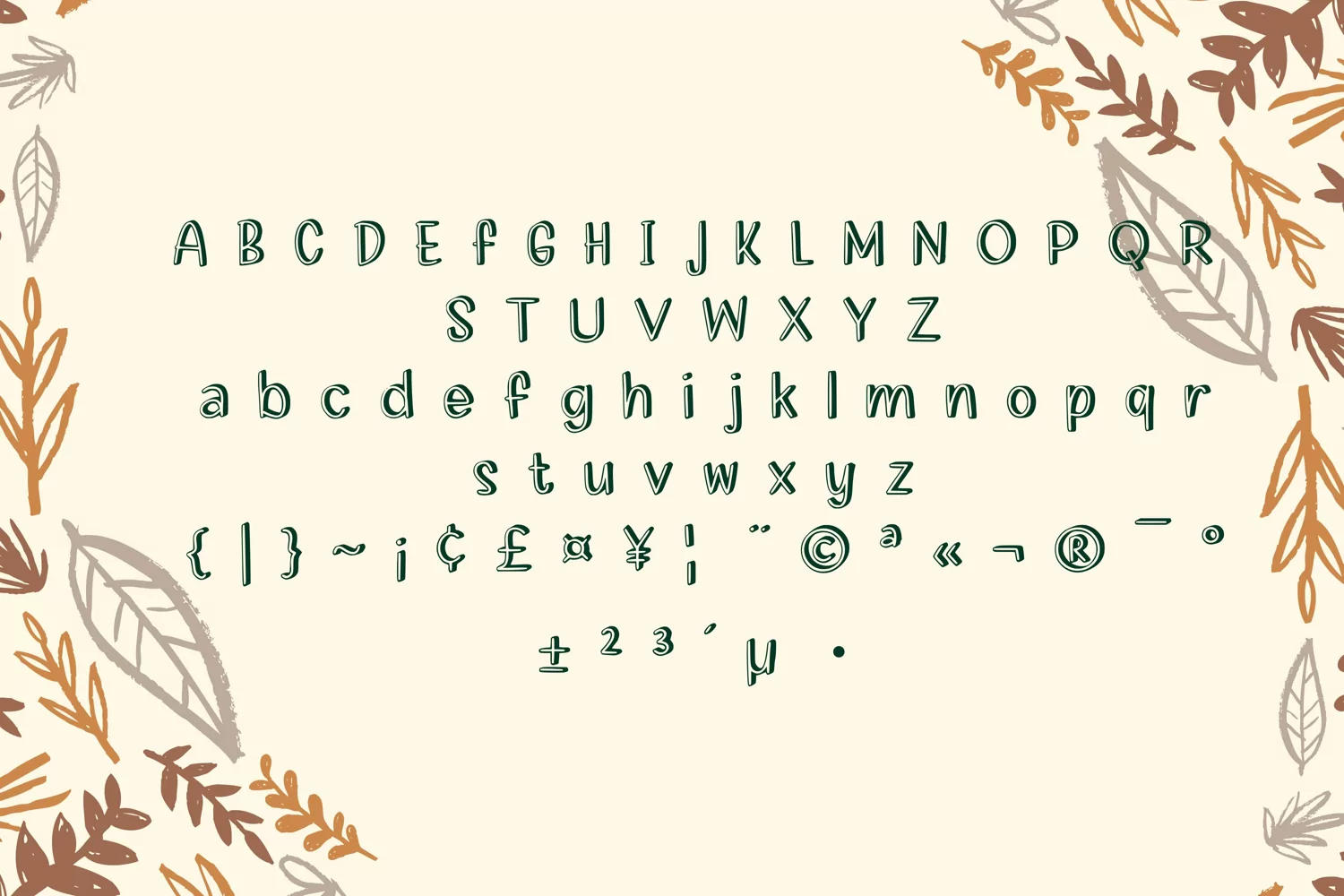
Bae Pumpkin is a bold, thick line lettered and vintage looking blackletter font. Expertly designed to make your creation look out of this world, this font will look gorgeous on a variety of ideas.